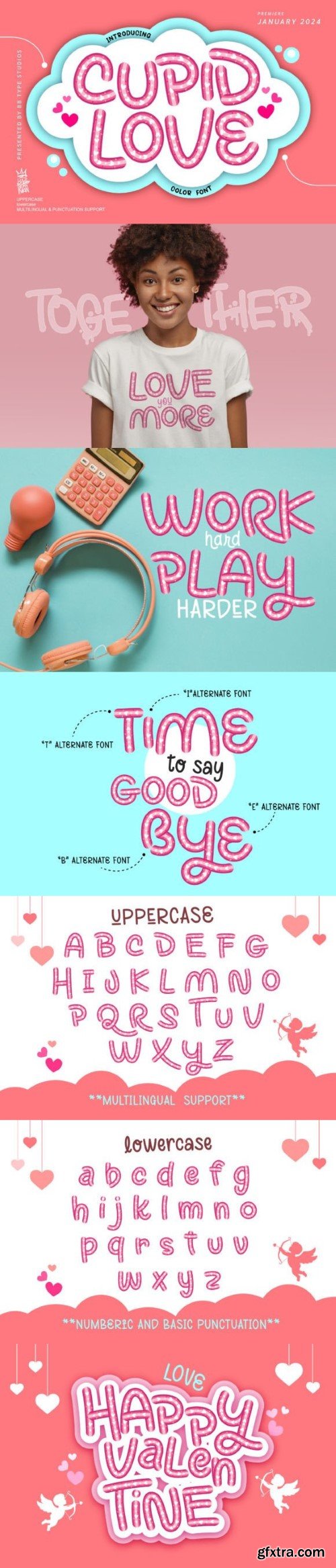
Cupid Love is a lovely and sweet color font. Cupid Love is ideal for crafting, and perfect for designs that need a Valentine-themed. It is suitable for book covers, posters, packaging, merchandise, logotypes, and many more!